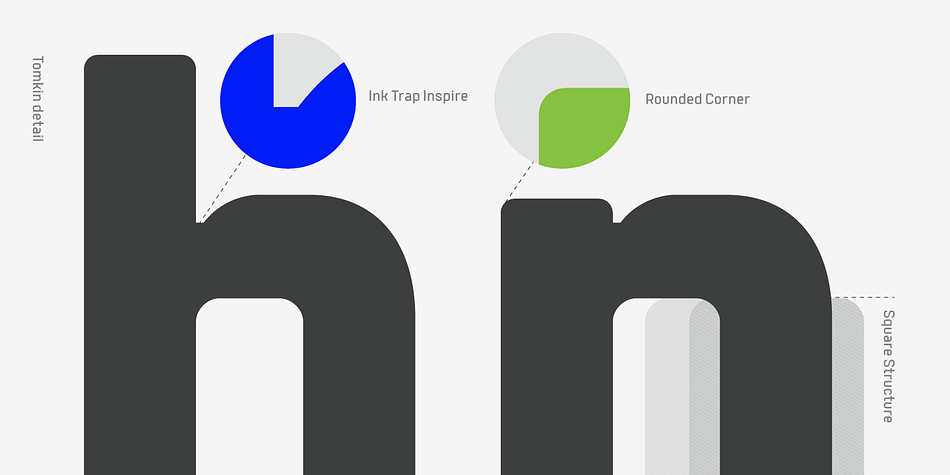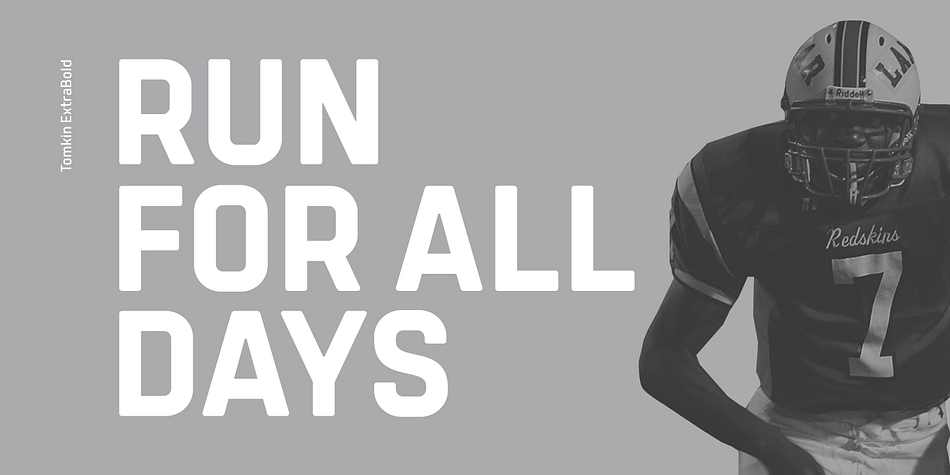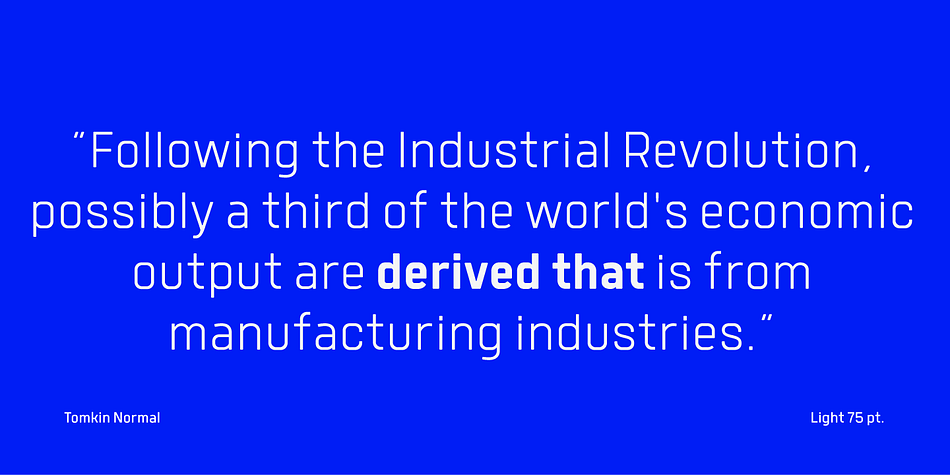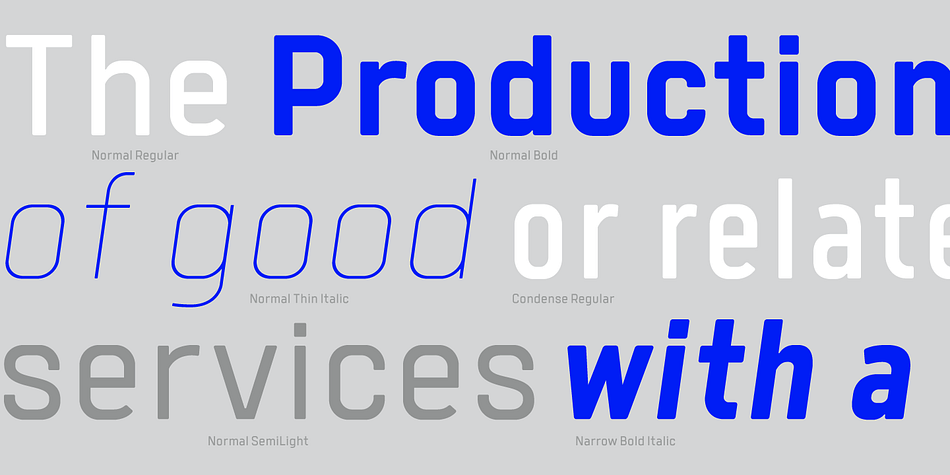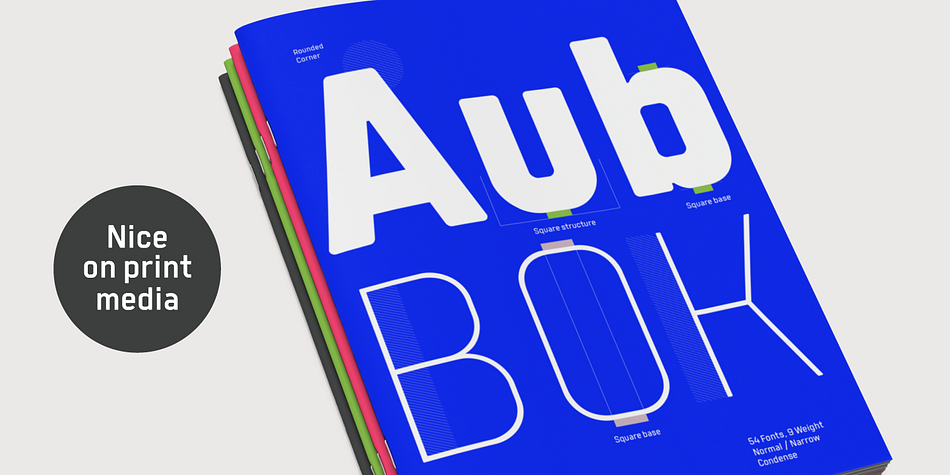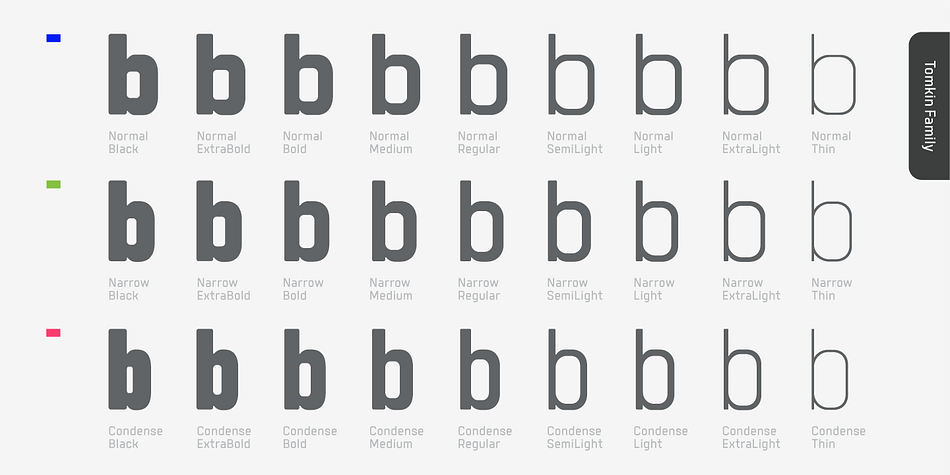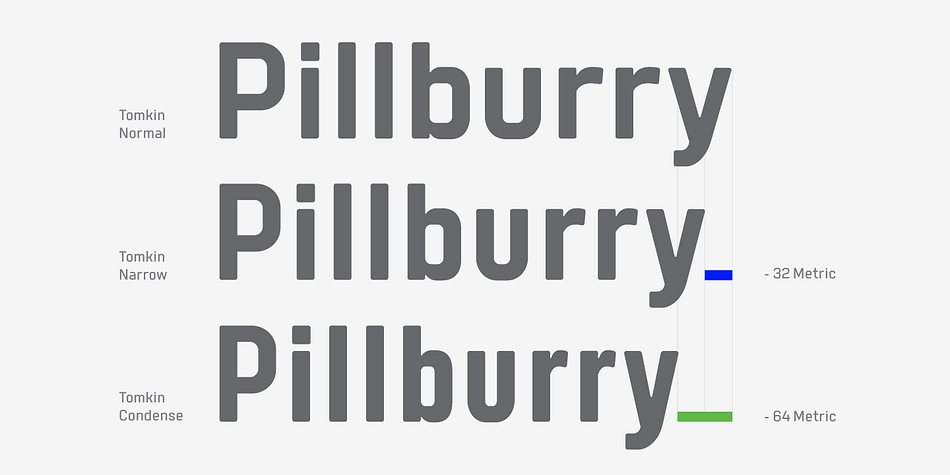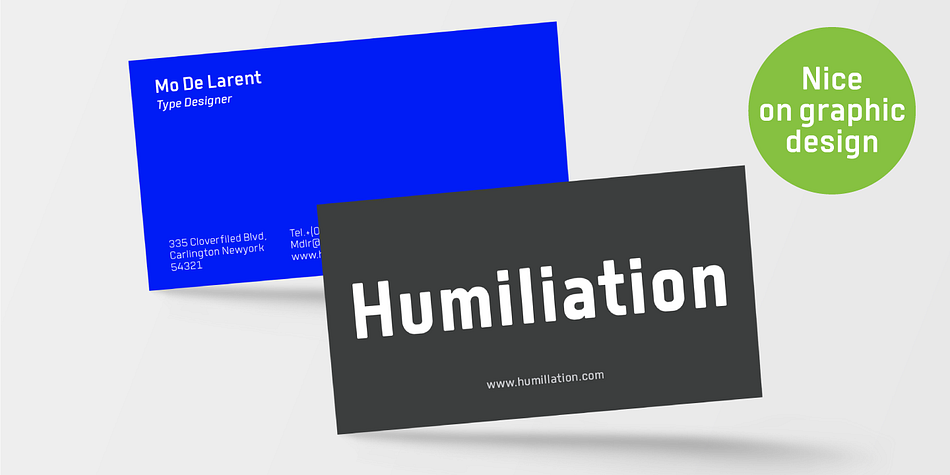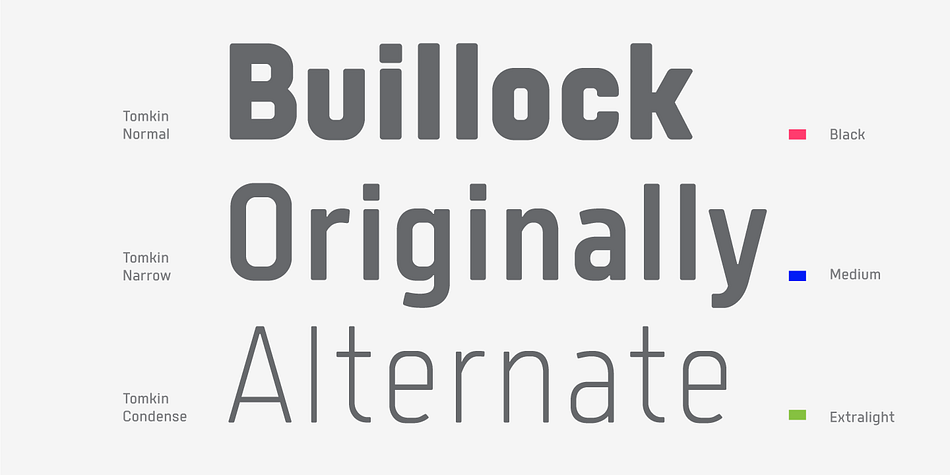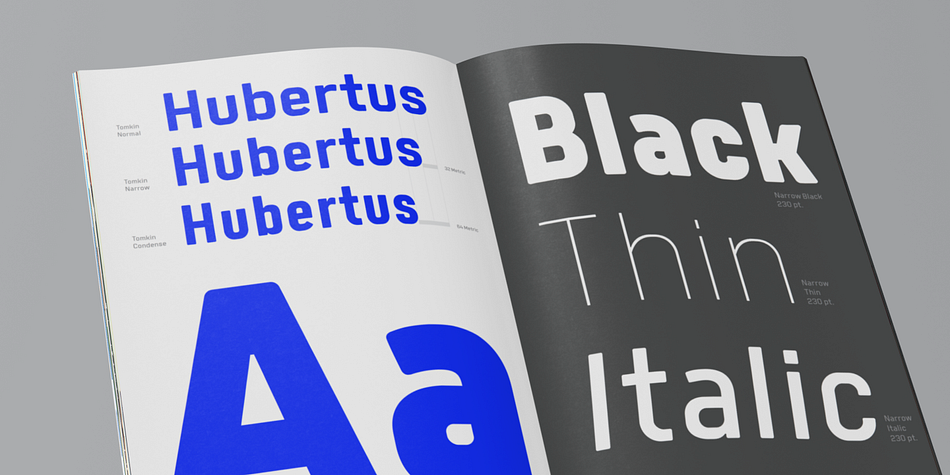
Designed by Chatnarong Jingsuphatada, Tomkin is a sans serif font family. This typeface has fifty-four styles and was published by Typesketchbook.
Tomkin font is an extra large super family of 54 fonts! Tomkin have such a big abundance of contrast, styles, weights, width.
Typesketchbook consists of a very usable, clean and modern sans typeface with Semi-square struture. The complete Tomkin type family includes 9 weights with italic and 3 width (normal, narrow, condensed) versions for each of them all in all 54 fonts for a multifunctional usage, especially for cooperative work, such as website, magazine, editorial, publishing , as well as packaging.